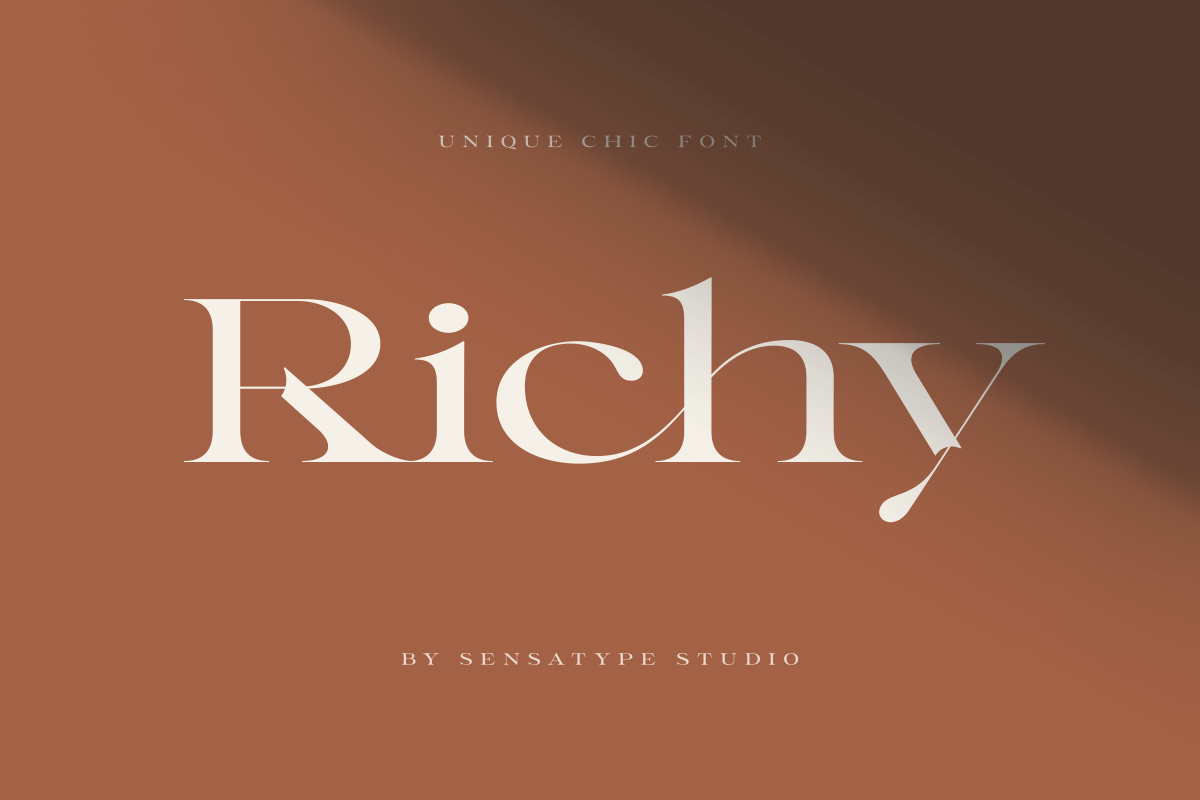
Richy
-Unique Chic Ligature Font
Richy - Unique Chic Ligature Font
Richy is a unique chic ligature font designed with elegant letterforms and creative typography details. Featuring stylish ligature combinations and a classy visual personality, this typeface helps designers create distinctive and memorable brand identities.
Perfect for luxury branding, logo design, beauty products, fashion projects, wedding invitations, packaging, and social media graphics. Richy combines a modern elegant style with decorative ligature features to create premium typography compositions.
With carefully crafted alternate characters and ligature combinations, Richy gives designers the flexibility to create unique wordmarks and sophisticated visual identities.
- Ligature features
- Alternate characters